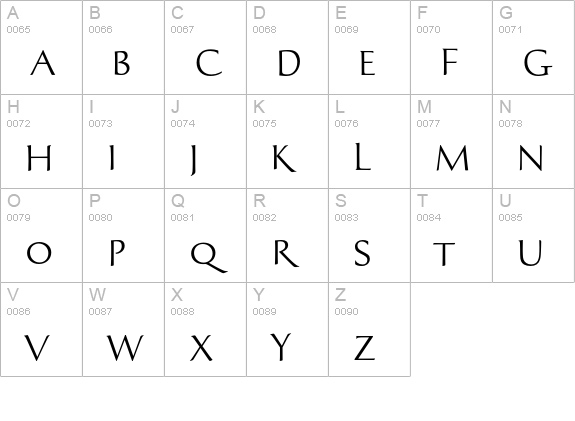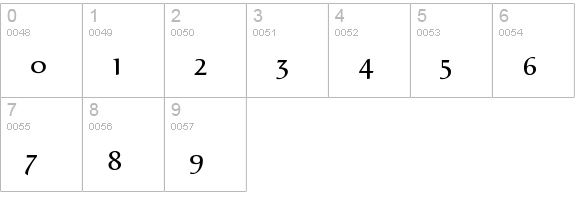
Oxalis Std Font Details
Oxalis Std is a stunning and versatile font that exudes elegance and sophistication. With its graceful curves and refined details, this typeface is perfect for adding a touch of style to any design project. Whether you're creating a logo, a poster, or a website, Oxalis Std will make your text stand out with its unique charm. What's even better is that Oxalis Std is available for free download at FontsMarket.com. That's right, you can elevate your designs with this gorgeous font without having to spend a dime. Don't miss out on the opportunity to enhance your creative work with the timeless beauty of Oxalis Std. Download it today and let your imagination soar!